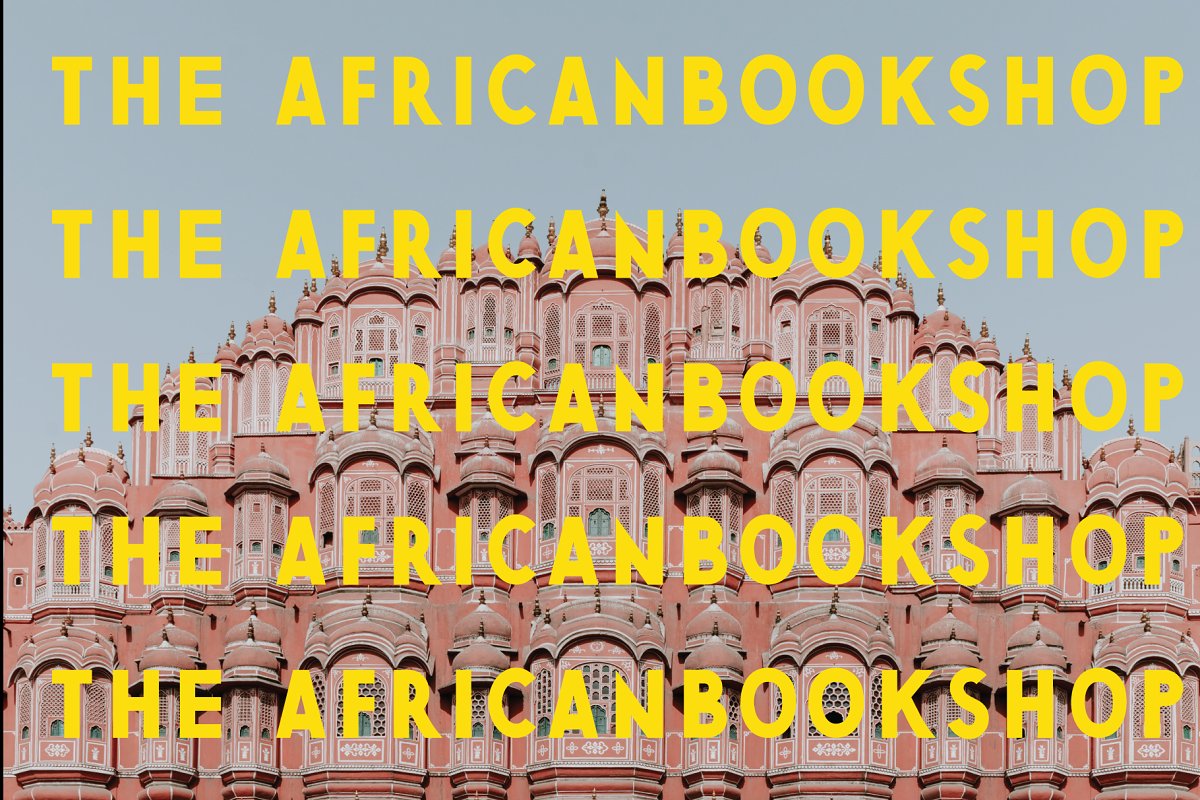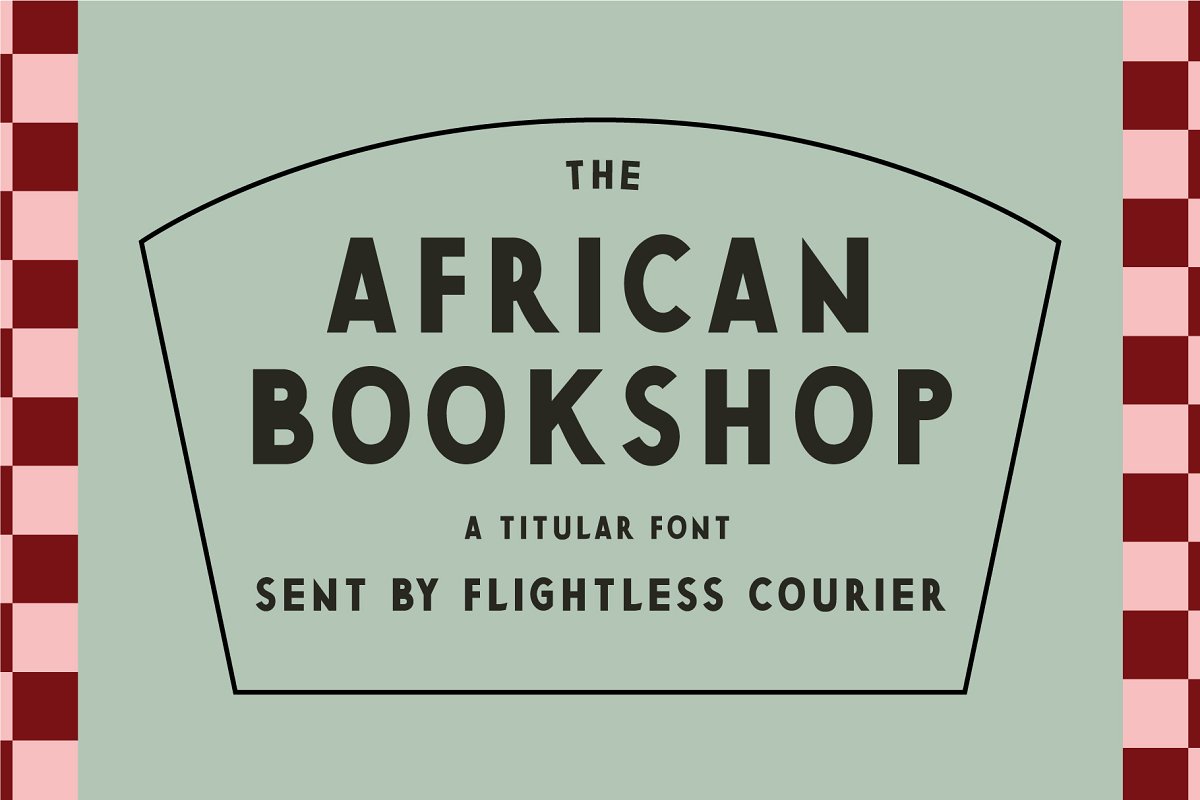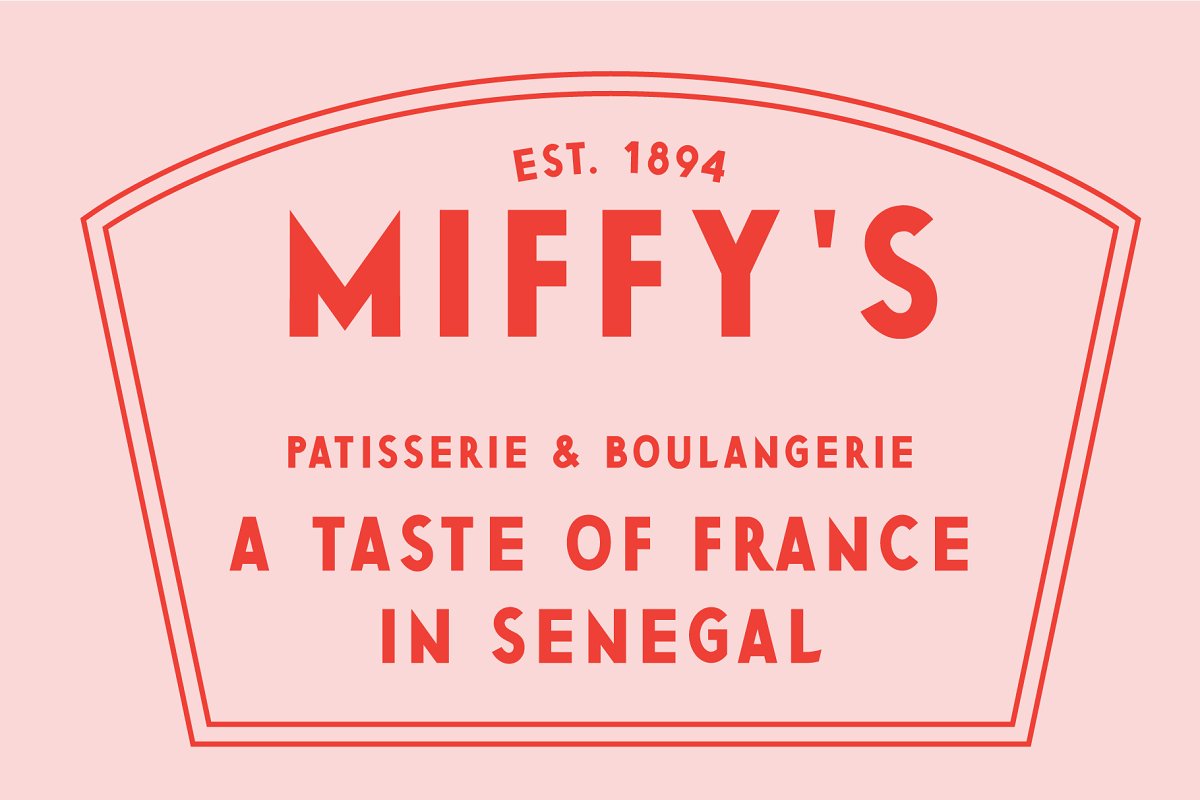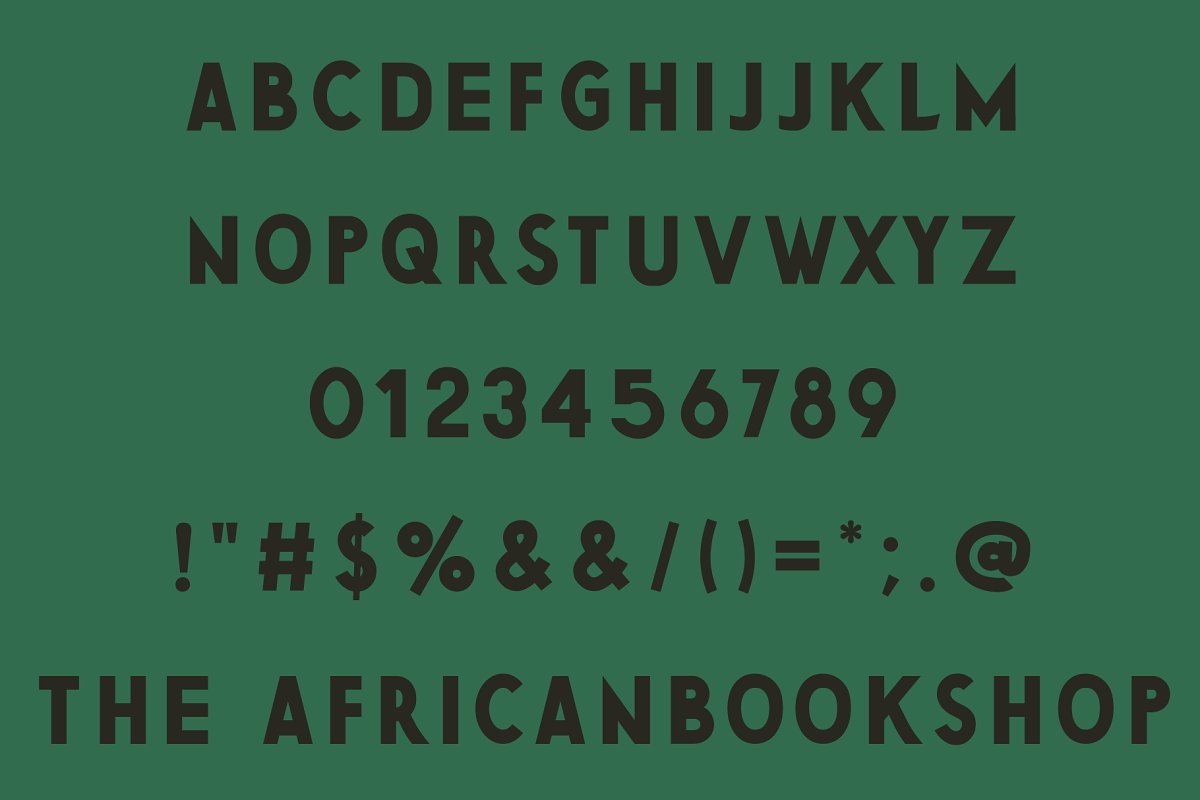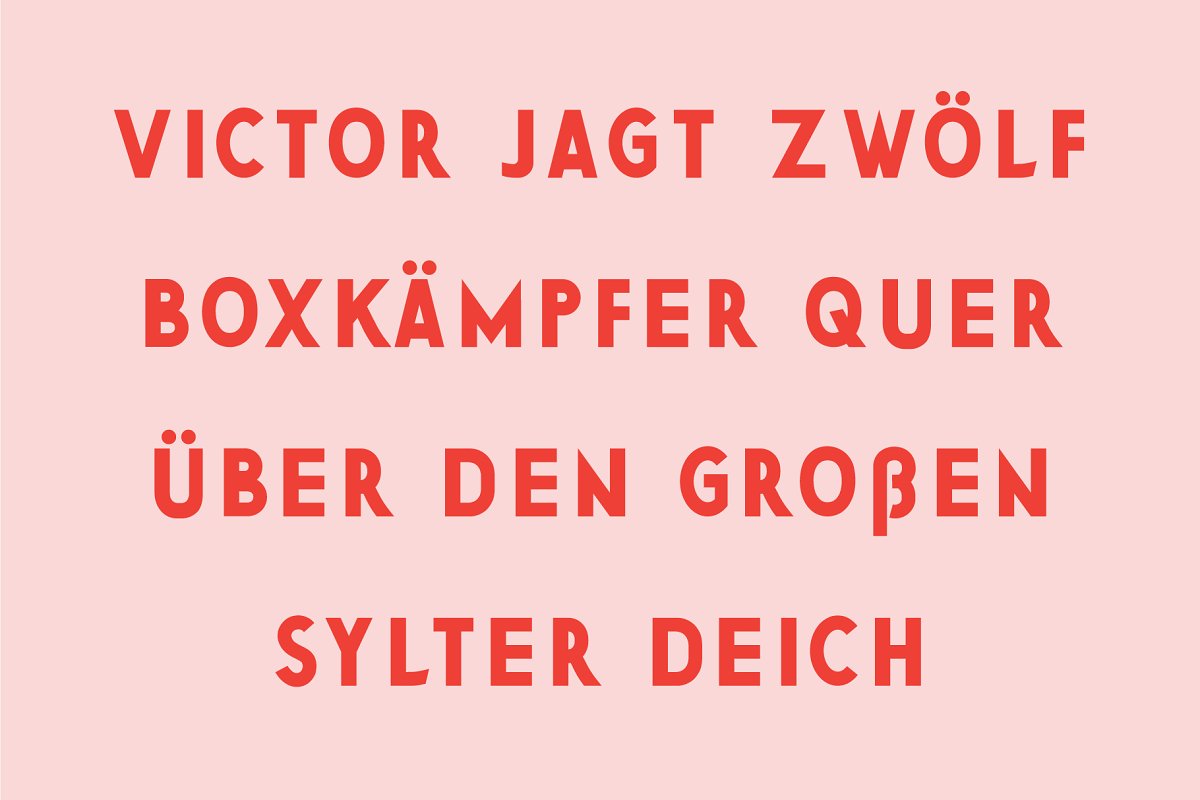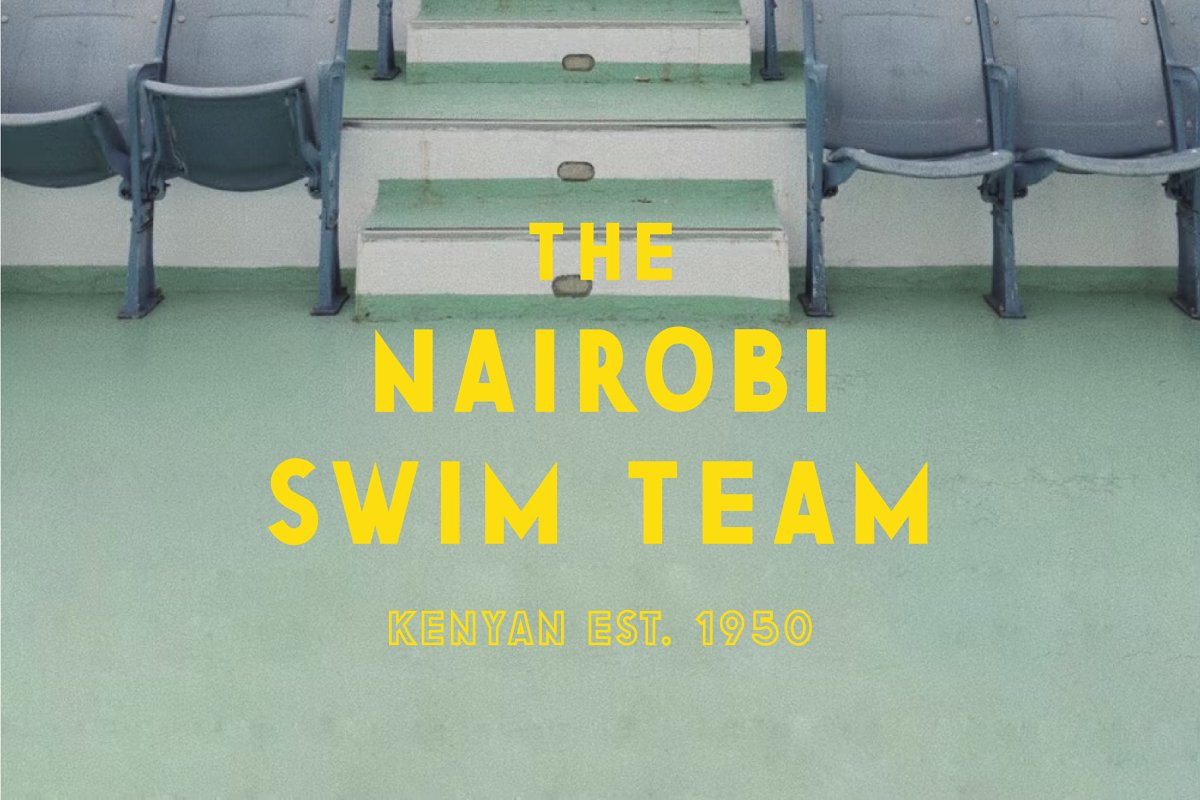
About the Titular The African BookShop Font
The African Bookshop is a vintage style, classic sans serif font, While putting together the mockup images I was taken by how much the font evoked Wes Anderson and my orginal inspiration Tin Tin titles, The font is adaptable; available in outline, shadow and wide options but is specifically made for titles and prints with a hint of the world of travel and class